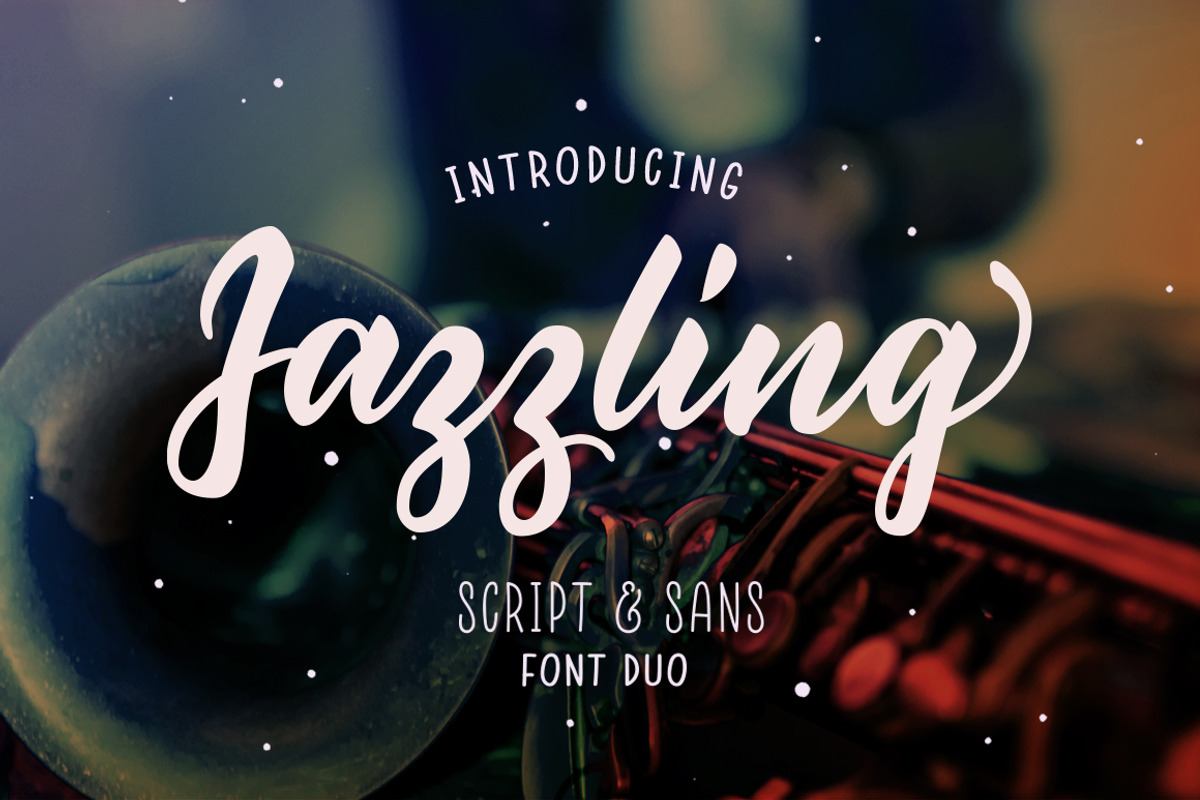
Jazzling Script & Sans - Font Duo Free Download
Jazzling Script & Sans – Font Duo Free Download
Jazzling Script & Sans – Font Duo Free Download is a dynamic and stylish font pair that blends the charm of hand-lettered script with the clarity of a clean sans serif. This perfectly balanced duo is ideal for branding, wedding invitations, product packaging, social media graphics, fashion lookbooks, and any project that calls for both elegance and readability.
The Jazzling Script features flowing, expressive curves that bring personality and grace, while the Jazzling Sans offers a modern, minimalist companion for supporting text. Together, they create a harmonious visual rhythm that works beautifully across digital and print layouts.